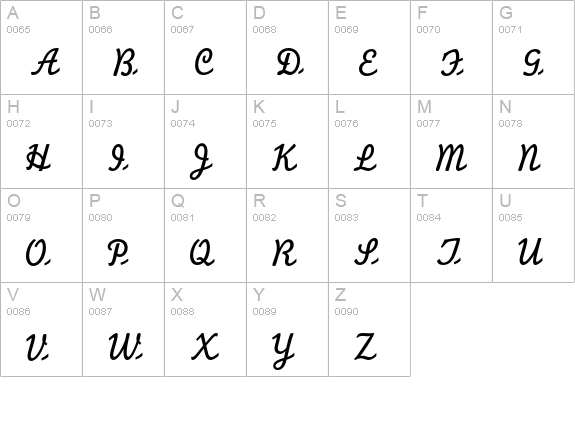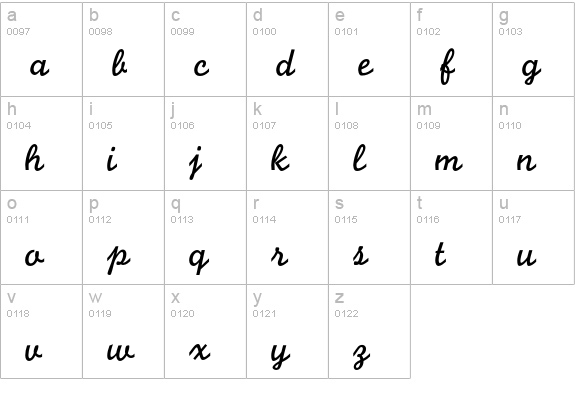
Monoline Script Font Details
Introducing our elegant and sophisticated Monoline Script font, a perfect blend of modernity and classic charm. The sleek and flowing lines of this typeface exude a sense of grace and style, making it ideal for a wide range of design projects. Whether you're working on invitations, branding, packaging, or any other creative endeavor, Monoline Script is sure to elevate your work to the next level. One of the best features of this font is that it is available for free download at FontsMarket.com. Yes, you read that right - you can add this stunning typeface to your collection without spending a single penny. Embrace the beauty of Monoline Script and let your creativity shine with this versatile and eye-catching font. Download it today and see the magic it brings to your designs!